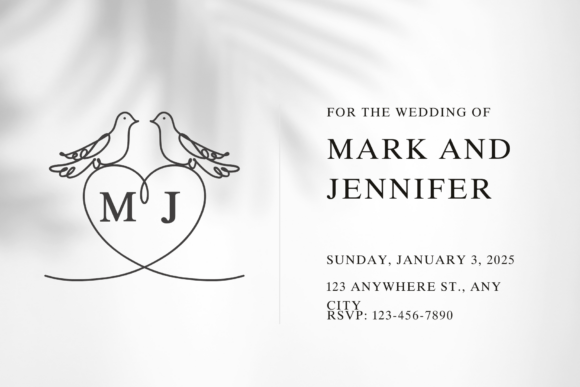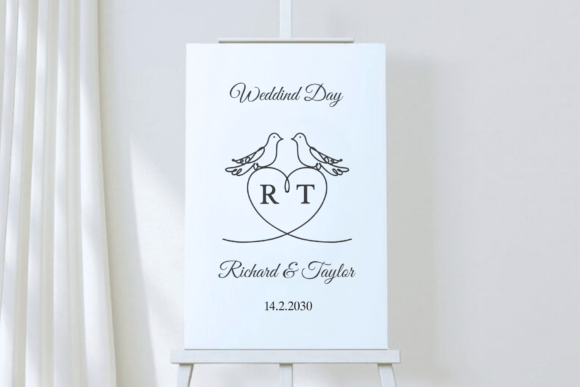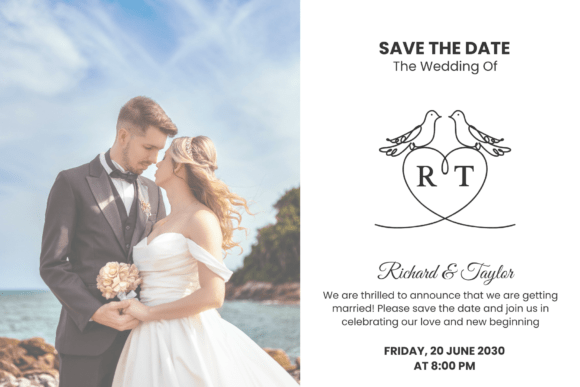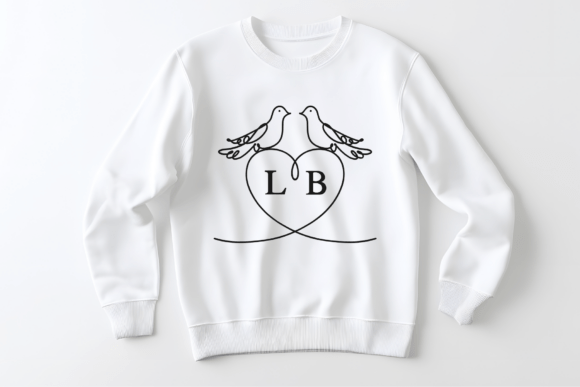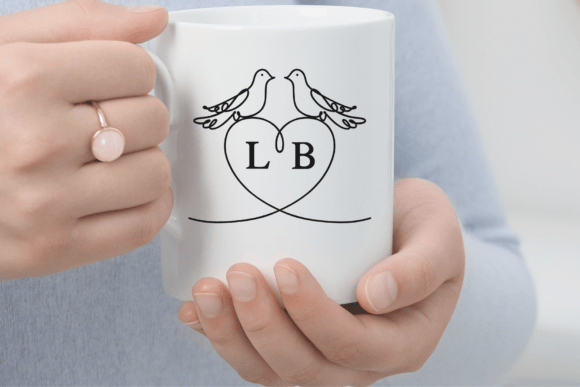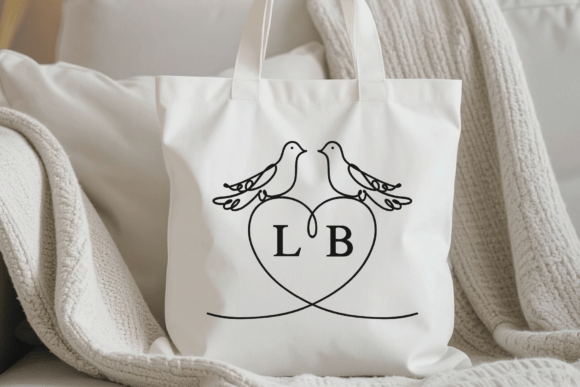
Introduction to Love Bird Wedding Monogram Font
As a designer, there’s nothing quite like the thrill of creating a custom wedding logo or invitation that perfectly captures a couple’s unique love story. And when it comes to making that vision a reality, the right font can make all the difference. That’s why we’re excited to share the Love Bird Wedding Monogram Font, a stunning and elegant design that’s sure to take your creative projects to the next level.
Whether you’re a seasoned designer or just starting out, this beautiful font is a valuable resource for any creative endeavor. With its clean, serif-inspired characters and charming lovebird illustrations, the Love Bird Wedding Monogram Font is the perfect choice for high-end nuptials, anniversaries, and romantic crafts. And the best part? It’s available as a free download, complete with a transparent background and high-quality design.
Key Features of Love Bird Wedding Monogram Font
- Unique and creative design perfect for wedding invitations, stationery, and other wedding-related projects.
- Monogram font design featuring love birds, adding a romantic and whimsical touch to wedding-related creative projects.
Honest Review: Love Bird Wedding Monogram Font
I recently had the chance to work with the Love Bird Wedding Monogram Font, and I must say it’s been a delightful addition to my creative project. This free download is a fantastic design resource for any wedding enthusiast or professional looking to create unique and personalized designs.
- High-quality design that exudes romance and whimsy ✨
- Perfect for creating wedding invitations, save-the-dates, and other paper goods ✨
While the Love Bird Wedding Monogram Font is a great resource, I do have a few limitations to note:
- Limited font styles and sizes may restrict design versatility ⚠️
Overall, I’m thoroughly impressed with the Love Bird Wedding Monogram Font. It’s a great addition to any designer’s toolkit, and I highly recommend it for personal or small-scale creative projects. With a little creativity, the possibilities are endless!
To get the most out of the Love Bird Wedding Monogram Font, experiment with different font sizes, colors, and arrangements to create a unique and creative project. You can also combine it with other design elements, such as flowers and ribbons, to add a personal touch.
The Love Bird Wedding Monogram Font is ideal for wedding invitations, save-the-date cards, and wedding stationery. You can also use it to create custom wedding decorations, such as monogrammed banners and signs.